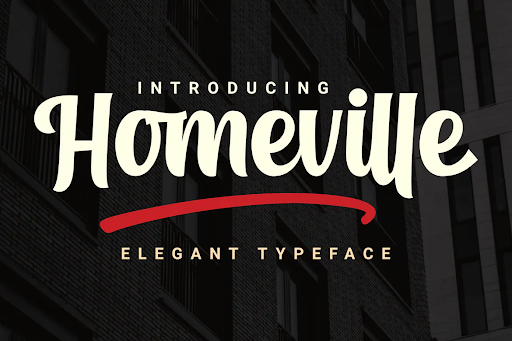
DS Homeville – Elegant Typeface QNU4K5A
Homeville – Elegant Typeface is a font amazing this year. a font that will shake things up in the design world. Distinctive fonts and complemented by alternative styles will enhance your project.
Homeville is perfect for design, logos, social media, branding, advertising, product design, handwritten quotes, product packaging, headers, posters, merchandise, and other designs.
• Standard glyphs
• Style Alternate
• SWSH
• Ligature
• Multilingual Accent